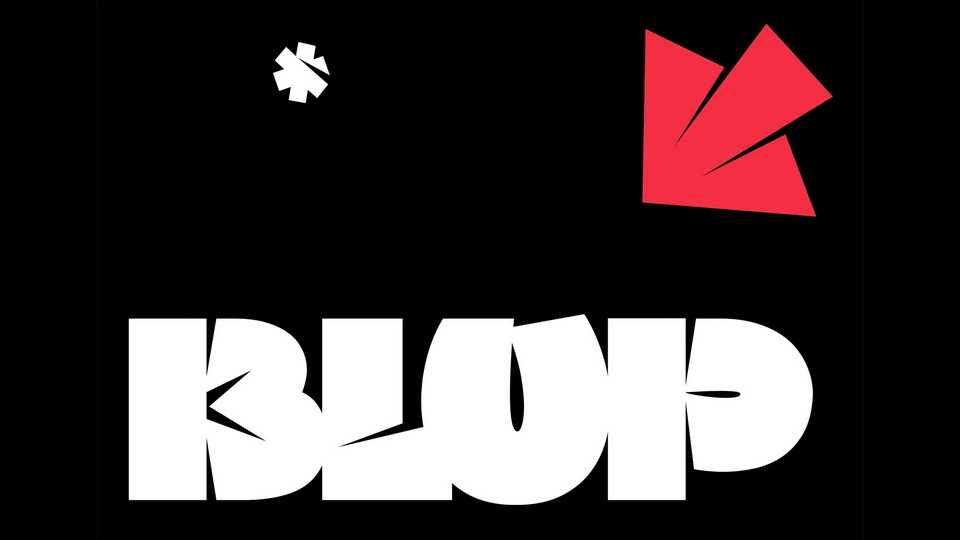
Download Blup font, a bold display grotesque, the main feature of which are letters that eat both themselves and each other. Blup font is well suited for branding and use on websites.
Designer: Alexandra Arsentieva